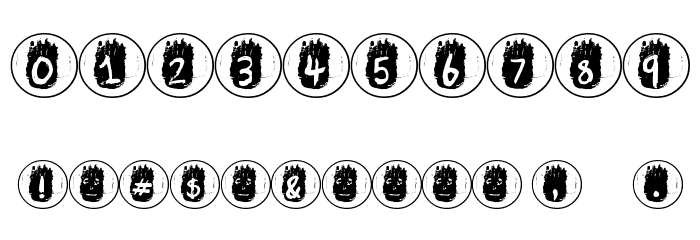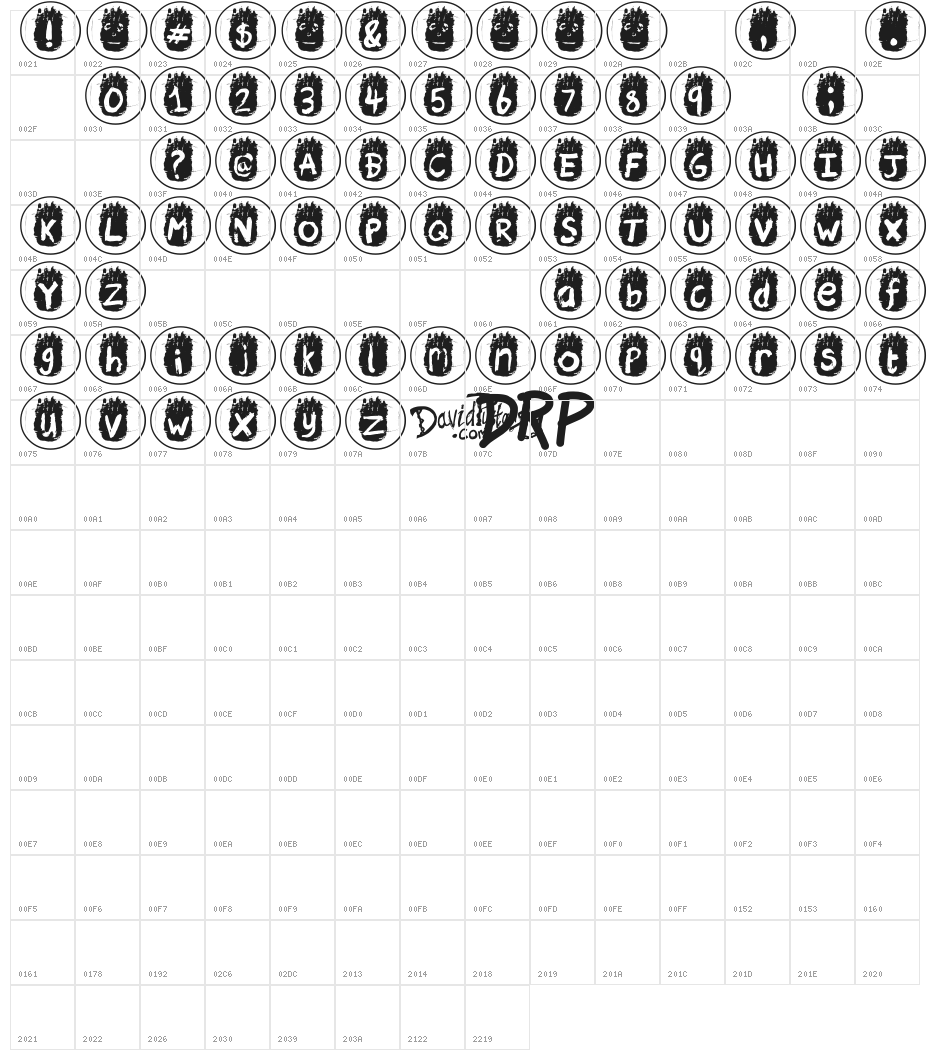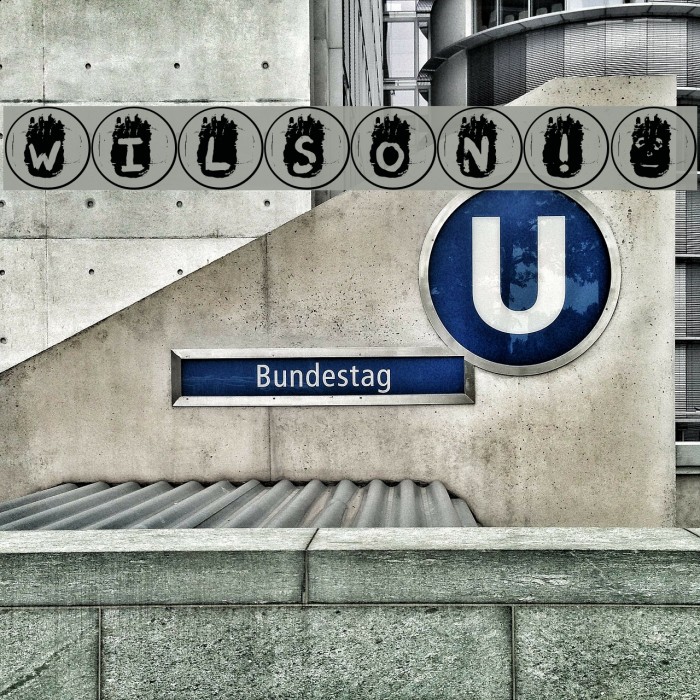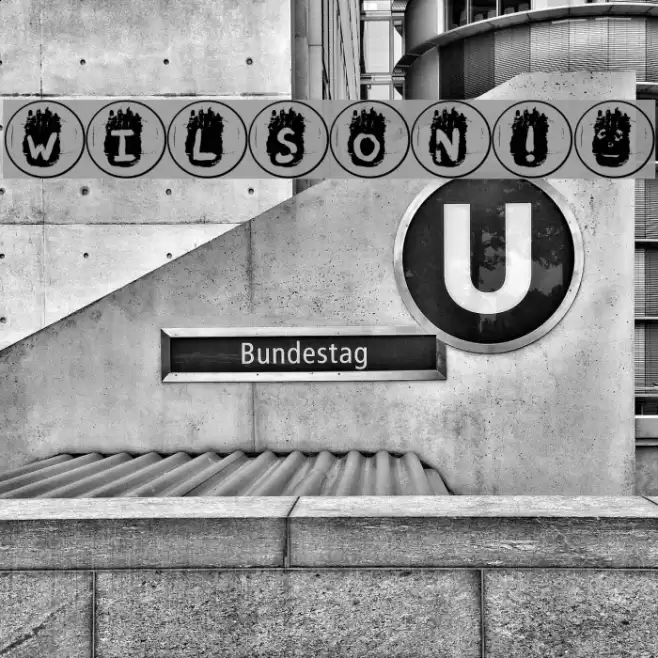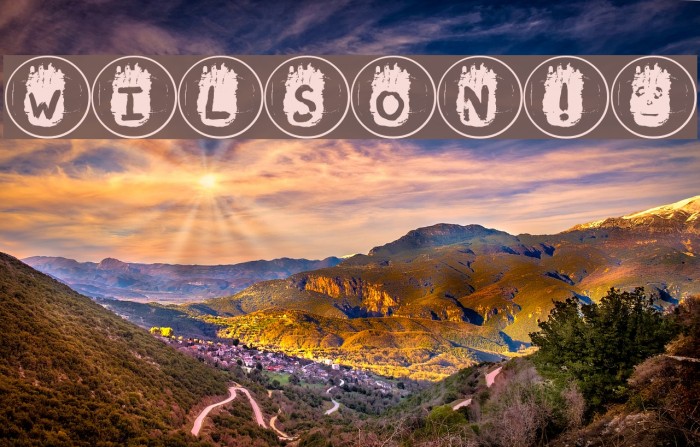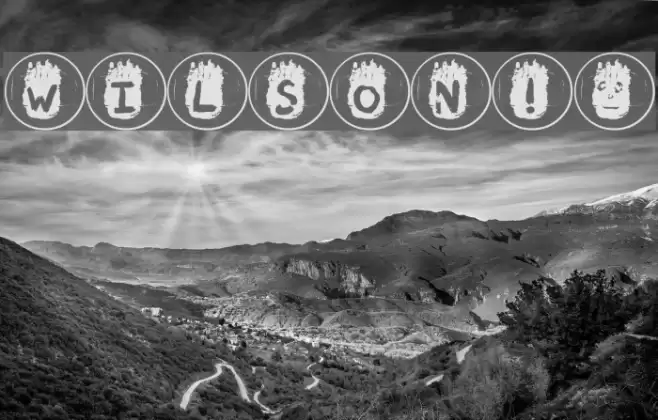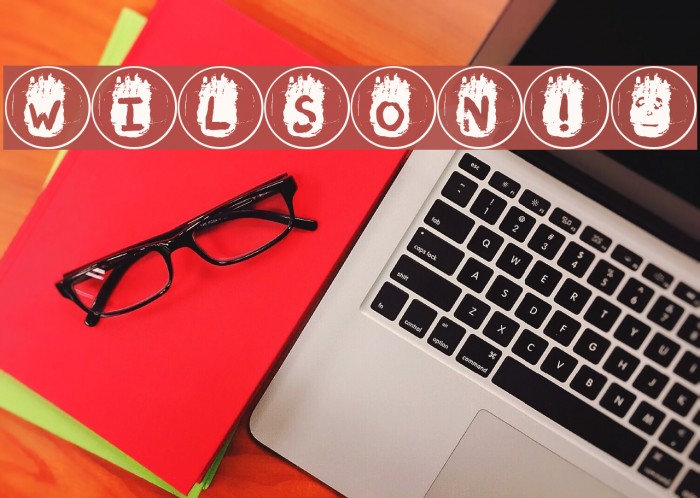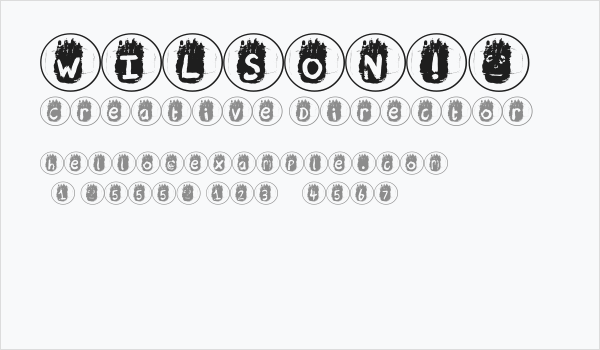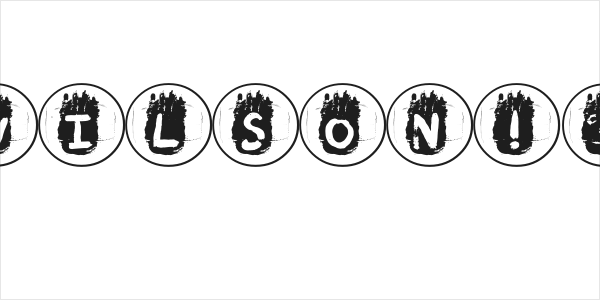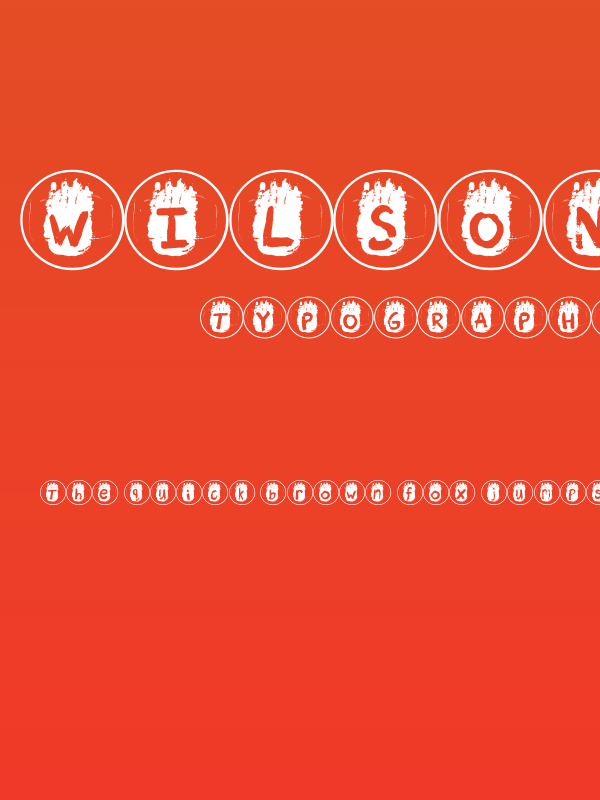
WILSON!* Font
WILSON!* Description
This font features a unique and playful design, with each character enclosed in a circular border. The letters and numbers are bold and have a hand-drawn, slightly irregular appearance, giving them a whimsical and artistic feel. The characters are filled with a solid black color, while the circular border is outlined, creating a striking contrast. The font includes both uppercase and lowercase letters, numbers, and a selection of special characters. Its distinctive style makes it suitable for creative and informal projects.
| Overall Style | Whimsical |